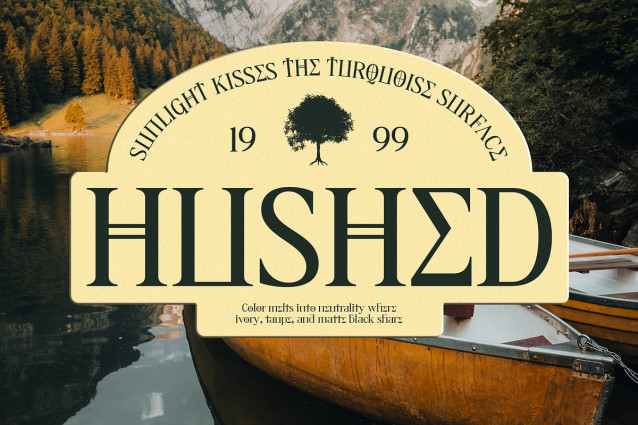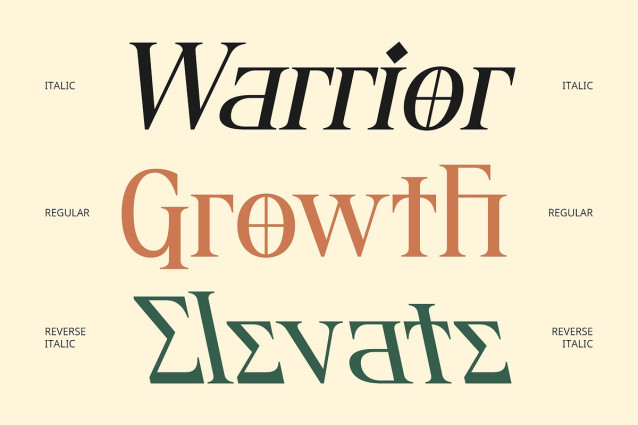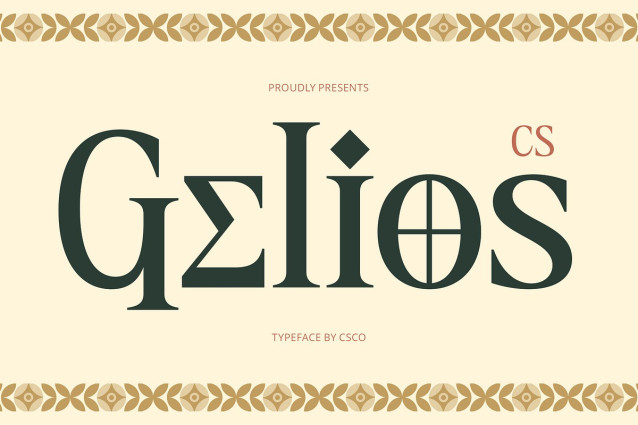
CS Gelios Font
CS Gelios Font is a modern display serif font that draws inspiration from classic Greek letterforms, bringing a sense of timeless sophistication into contemporary design. Its clean, balanced characters are enhanced by subtle yet stylish serif details, creating a refined aesthetic that feels both historical and modern.
Sophisticated, Artistic, and Culturally Rich Each glyph in CS Gelios is designed with graceful proportions and strong visual clarity, embodying a look that is luxurious, intellectual, and artistically elevated. It’s a typeface that celebrates cultural depth while offering designers the tools to craft modern layouts that exude elegance and exclusivity.
Perfect for High-End and Editorial Designs CS Gelios is ideal for premium branding, fashion titles, cultural publications, editorial layouts, museum identity systems, and elegant packaging. Its combination of classical influence and modern execution allows it to speak confidently in any context where artistry and refinement are key.
A Typeface That Bridges Time With its Greek-inspired essence and contemporary sensibility, CS Gelios offers a unique typographic voice that bridges the ancient and the modern. Whether used in headlines or brand marks, it delivers a message that’s cultured, thoughtful, and visually impactful.